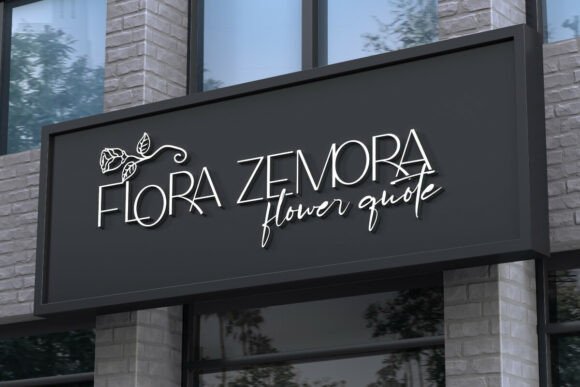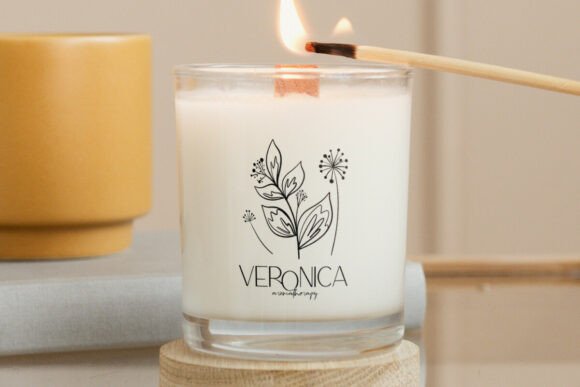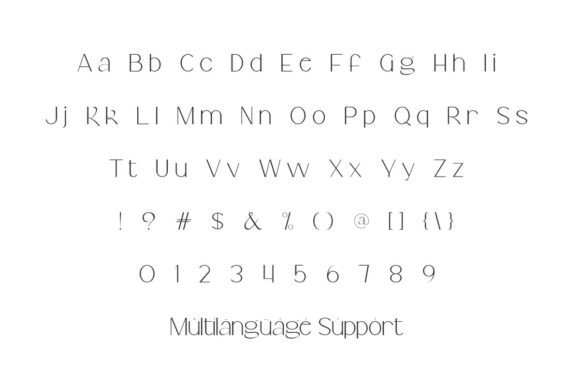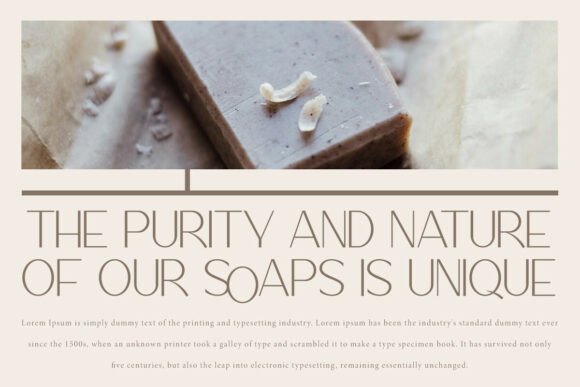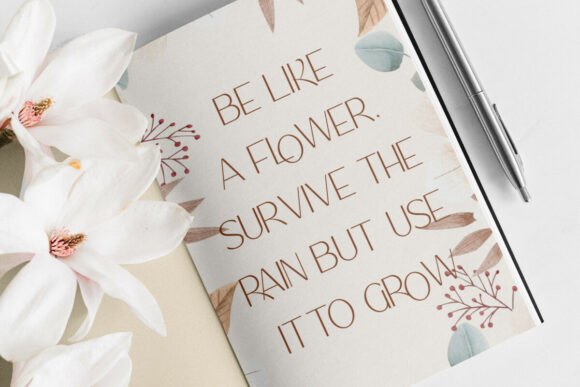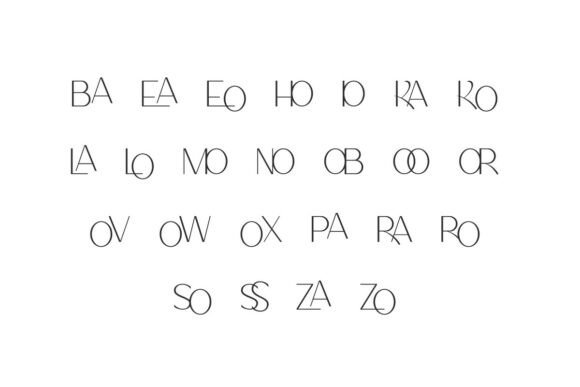
Elevate Your Design Aesthetic with Flora Zemora Font
In the world of typography, few fonts manage to strike a balance between avant-garde fashion and timeless minimalism. Flora Zemora, a sophisticated sans-serif display font, is one such typeface that redefines modern luxury. Characterized by its ultra-fine hairlines and dramatic, overlapping geometric forms, Flora Zemora is the perfect choice for designers who value sleek geometry and a boutique feel.
A Perfect Blend of Style and Elegance
Flora Zemora’s unique design makes it an ideal choice for high-end editorial layouts, premium brand identities, and chic wedding stationery. Its high-contrast, “editorial-cool” vibe demands attention without saying a word, making it a statement piece for designers who want to elevate their design aesthetic. Whether you’re looking to create a luxurious brand identity or a stylish editorial layout, Flora Zemora provides the perfect blend of style and elegance.
Key Features of Flora Zemora Font
- Ultra-fine hairlines: Flora Zemora’s ultra-fine hairlines add a touch of sophistication and elegance to any design.
- Dramatic, overlapping geometric forms: The font’s dramatic, overlapping geometric forms create a unique and stylish look that sets it apart from other sans-serif fonts.
- High-contrast design: Flora Zemora’s high-contrast design makes it perfect for creating visually striking editorial layouts and brand identities.
- Timeless minimalism: Despite its avant-garde look, Flora Zemora’s design is rooted in timeless minimalism, making it a versatile choice for a wide range of design projects.
Use Cases for Flora Zemora Font
Flora Zemora’s versatility makes it suitable for a wide range of design projects, including:
- High-end editorial layouts: Flora Zemora’s sophisticated design makes it perfect for creating luxurious editorial layouts that demand attention.
- Premium brand identities: The font’s unique design and high-contrast look make it an ideal choice for creating premium brand identities that stand out.
- Chic wedding stationery: Flora Zemora’s elegant design makes it a popular choice for creating stylish wedding stationery, including invitations, menus, and place cards.
Why Choose Flora Zemora Font?
Flora Zemora is more than just a font; it’s a statement piece for designers who value sleek geometry and a boutique feel. Here are just a few reasons why you should choose Flora Zemora for your next design project:
- Unique design: Flora Zemora’s unique design sets it apart from other sans-serif fonts, making it a great choice for designers who want to create something truly special.
- Versatility: The font’s versatility makes it suitable for a wide range of design projects, from high-end editorial layouts to premium brand identities.
- Elegance: Flora Zemora’s elegant design makes it perfect for creating sophisticated and stylish designs that demand attention.
In conclusion, Flora Zemora is a sophisticated sans-serif display font that redefines modern luxury. Its unique design, ultra-fine hairlines, and dramatic, overlapping geometric forms make it a statement piece for designers who value sleek geometry and a boutique feel. Whether you’re looking to create a high-end editorial layout, a premium brand identity, or chic wedding stationery, Flora Zemora is the perfect choice. With its versatility, elegance, and unique design, Flora Zemora is sure to elevate your design aesthetic and take your designs to the next level.